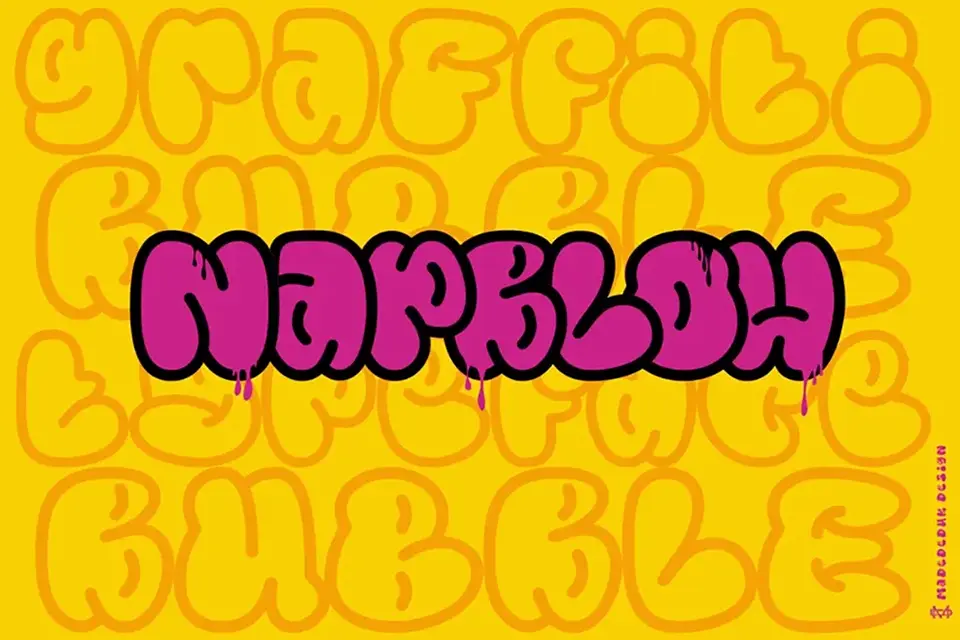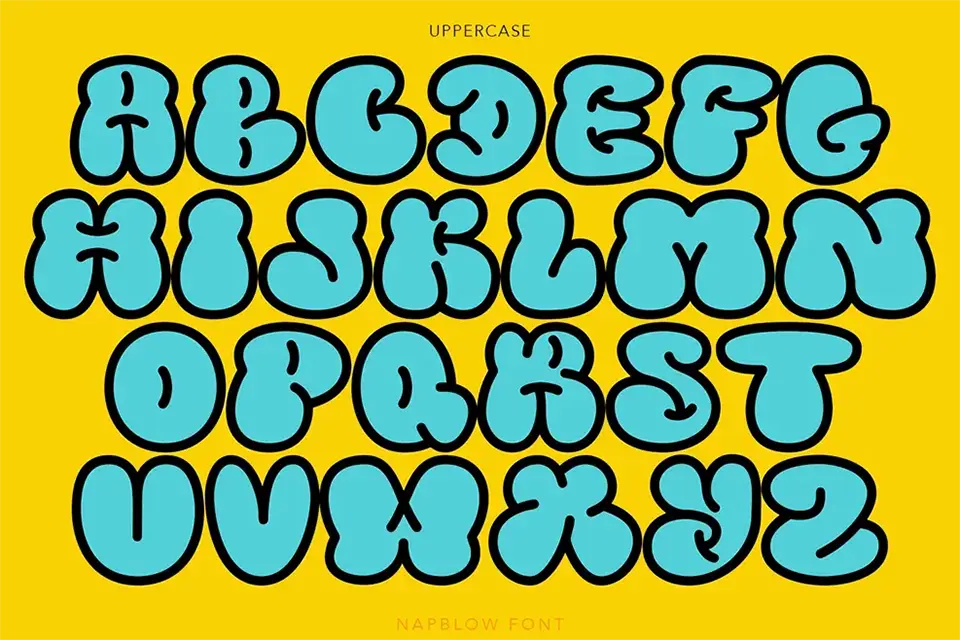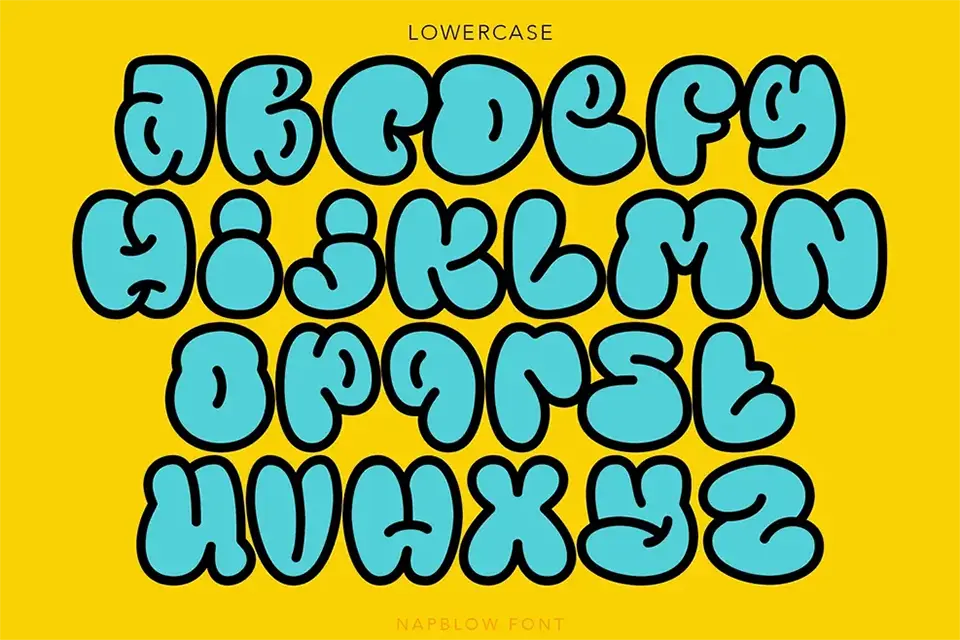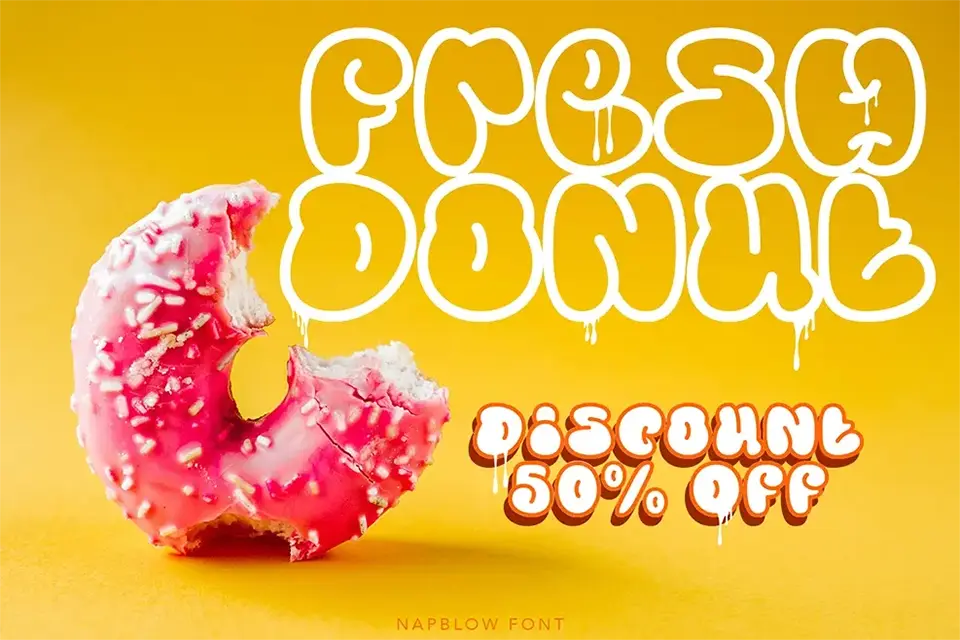
Napblow Font
Napblow is a bubble graffiti font inspired from 90s street hip hop style. This versatile font features two style options—outline and solid—with clear and unique character designs that can be combined to create rhythmic, comfortable typography. Perfect for logotypes, stickers, packaging design, headlines, brand identity, t-shirts, posters, magazines, books, Instagram, websites, and many creative applications. It includes comprehensive character support with uppercase and lowercase letters, numbers, symbols, and international glyphs across multiple file formats for seamless integration into any project.